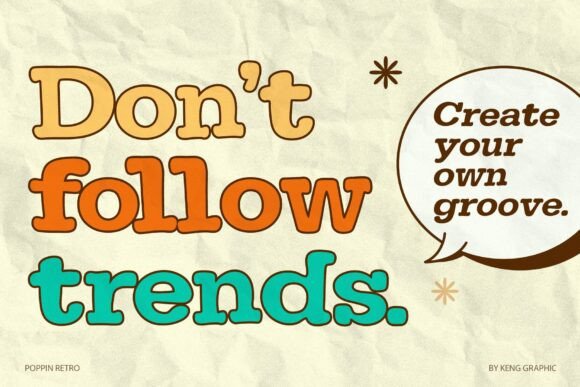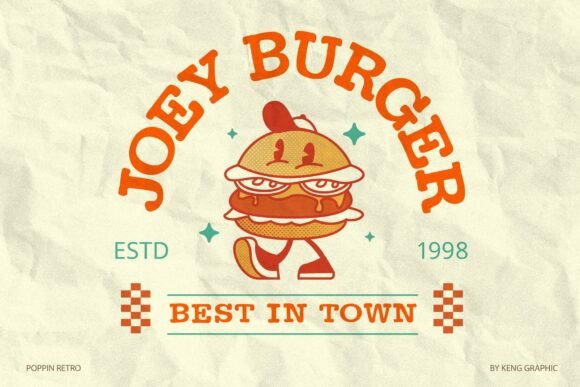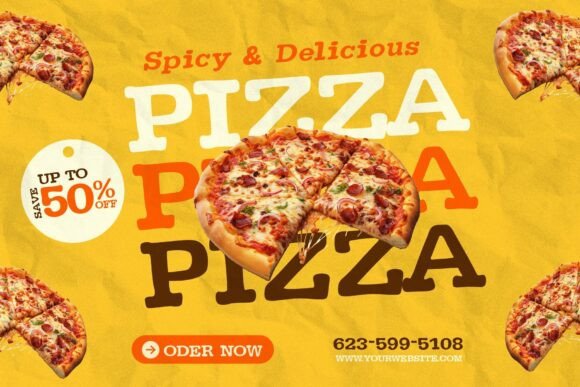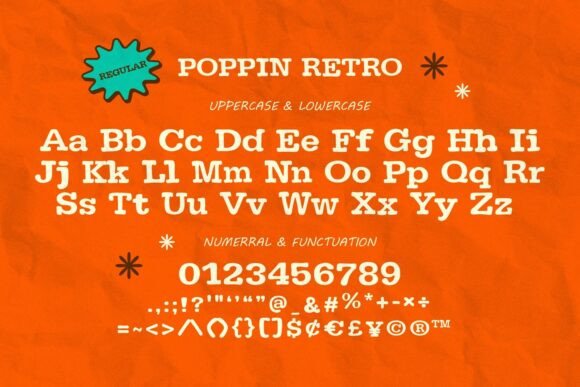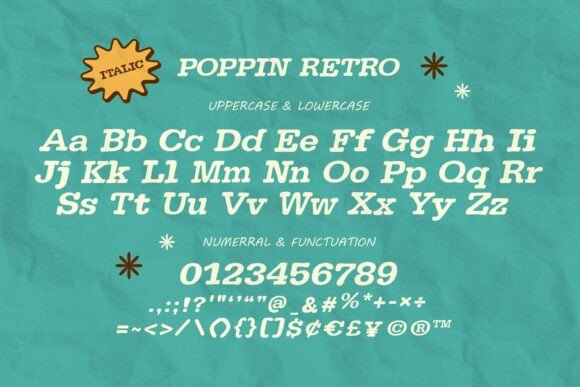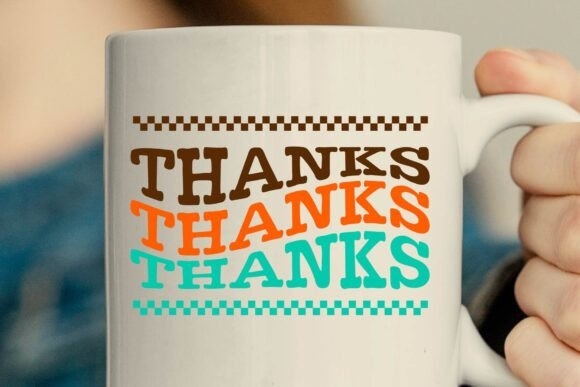
Introduction to Poppin Retro Font
Introducing Poppin Retro – the epitome of classic typography, beautifully designed to add a vintage flair to your creative projects.
This display retro font is drawn from the timeless aesthetics of retro design, making every creation radiate an alluring old-world charm Ideal for infusing a nostalgic vibe into any retro-inspired artwork or design, Poppin Retro is truly a nostalgic homage to bygone design aesthetics.
Key Features of Poppin Retro Font
Why Choose Poppin Retro Font?